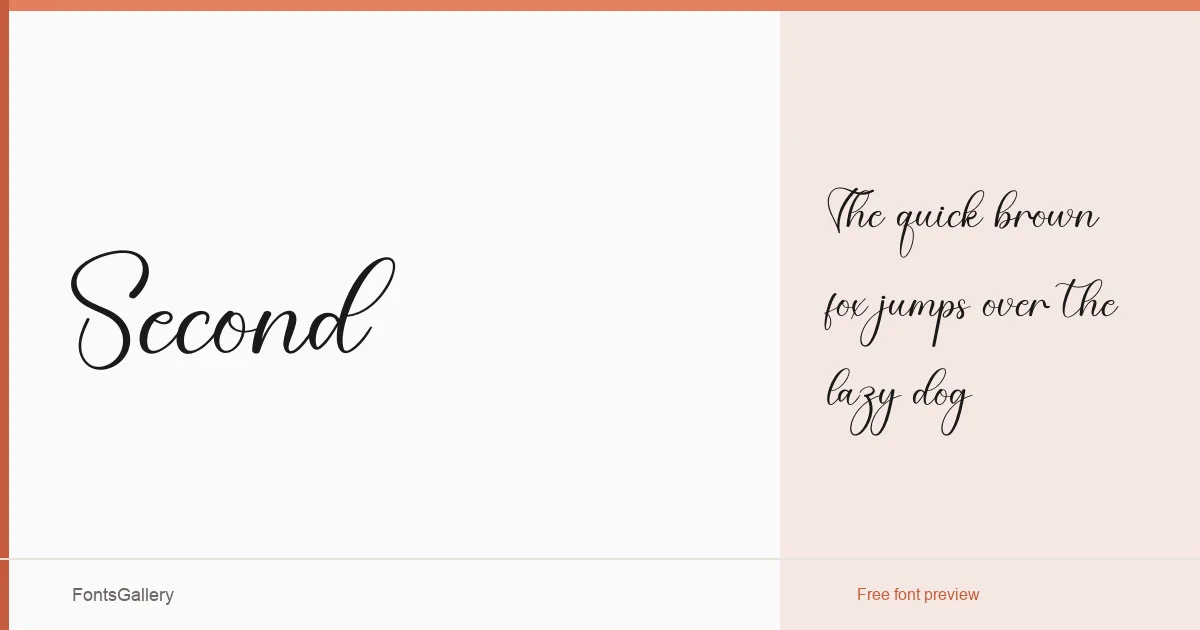
About Second Font
Second is a script typeface crafted by Scratchones Creative, designed to bring an air of elegance and romance to a wide range of creative projects. Its flowing, classic character makes it an immediately distinctive choice for designers seeking a refined typographic presence. Whether used for personal stationery or polished design work, Second carries a timeless charm that speaks to its carefully considered aesthetic.
Second features the graceful curves and fluid strokes characteristic of elegant script typography, evoking a sense of romance and classic sophistication. Each letterform flows naturally into the next, creating a sense of continuity and warmth that feels both handcrafted and polished. The classic sensibility of the typeface lends it a heritage quality that suits formal and celebratory contexts alike.
Second is ideally suited for logos, branding identities, wedding stationery, invitation cards, and greeting cards where an elegant and romantic tone is desired. Its expressive script character pairs beautifully with clean, neutral typefaces to create a balanced typographic hierarchy. For a refined pairing, consider combining Second with Aresink for a complementary script contrast, or with Helvetica for a modern, grounded counterbalance.